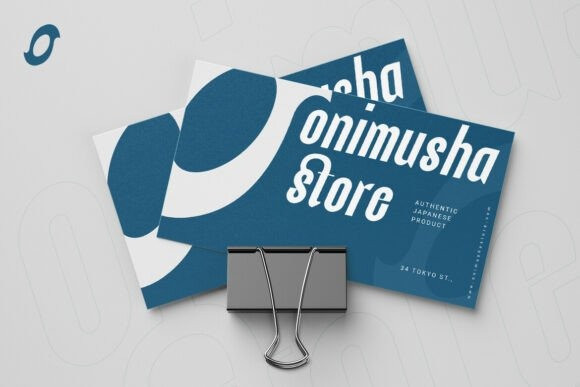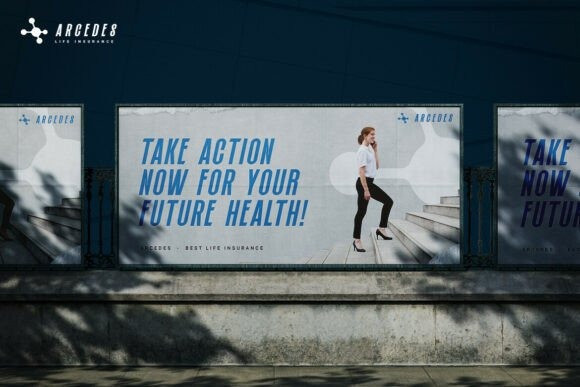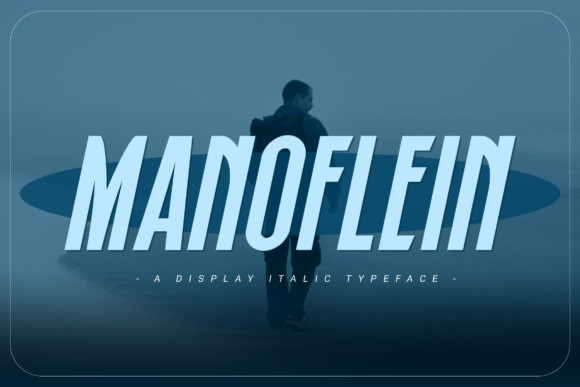
Manoflein Font
Manoflein Font is an exquisite display italic font that embodies elegance and exclusivity, making it the perfect choice for high-impact designs. With its gracefully flowing curves and sophisticated ligatures, this font captures attention in a way that elevates any project. Whether you’re crafting stunning posters, eye-catching advertisements, or refined packaging, Manoflein delivers an aesthetic that speaks of luxury and taste. Its versatility shines through with stylistic alternates and swashes, allowing for a unique touch that sets your designs apart.
Designed with a comprehensive glyph set of over 200 characters, Manoflein supports multilingual applications, ensuring your message resonates with a global audience. The font is available in multiple formats, including TTF, OTF, ensuring compatibility across various platforms and design software. Whether for a chic signpost or a lavish product label, Manoflein infuses a sense of prestige and charm into every letter, making it an essential addition to your design toolkit.
This font is perfect for a wide range of applications, including:
– Eye-catching headlines and posters
– Sportswear branding and logos
– Automotive or tech-related advertisements
– Album art and movie titles
With its confident and clean design, Manoflein adds a sense of power and forward momentum to any project. It includes a comprehensive set of uppercase letters, numbers, and punctuation, ensuring it’s ready for any design challenge.